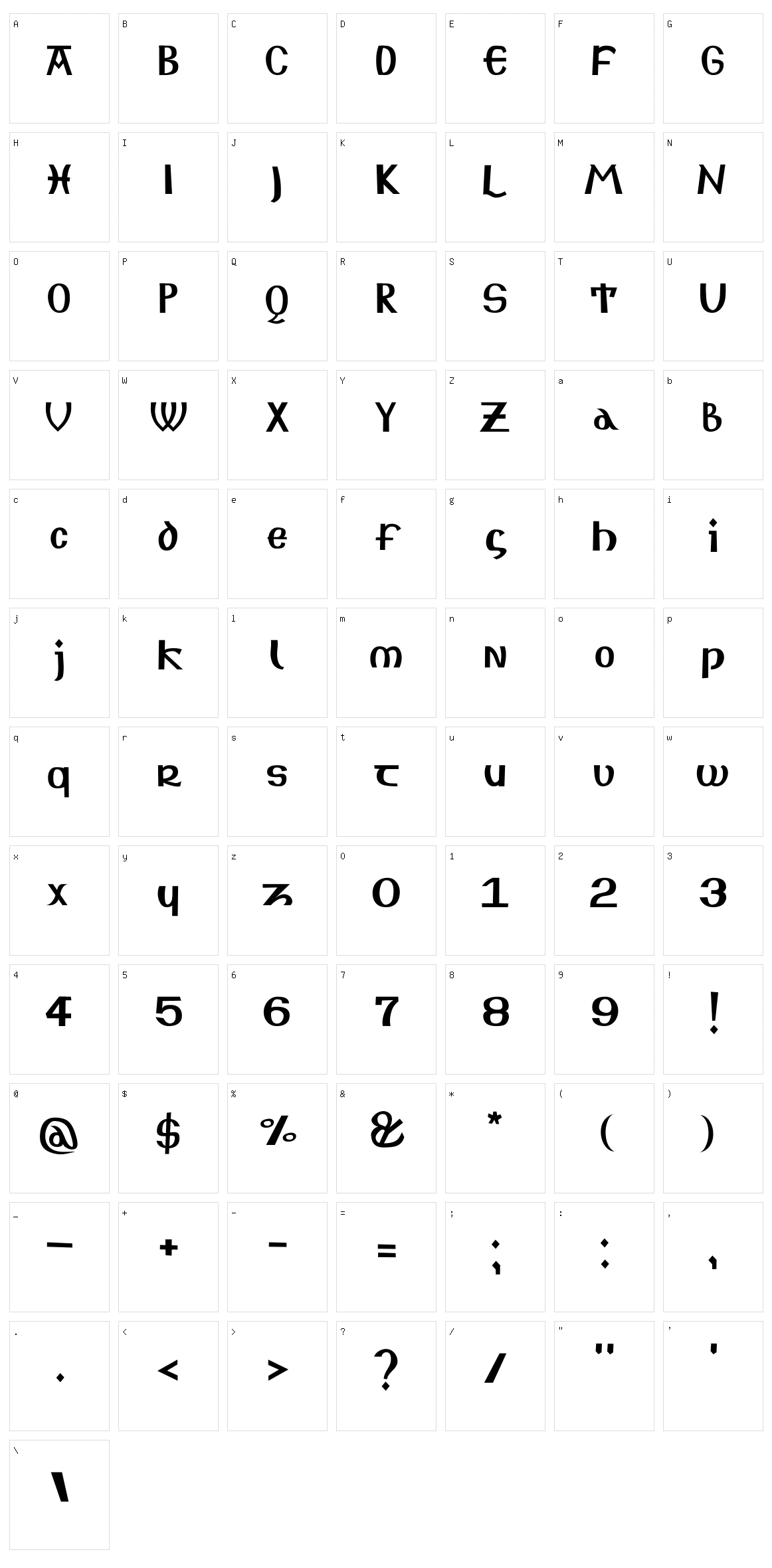
The free font Spirit's Sword is carefully designed by Xavier Haag, showcasing a thoughtful balance of creativity and usability and belongs to the Gothic font family. When you download the ZIP file, it contains only 17.76 KB of font files, making it lightweight and quick to download. Please review the license details below to understand permitted usage and distribution rights. If license information is not available, we recommend using this font for personal projects only or contacting the author directly for commercial usage permissions.